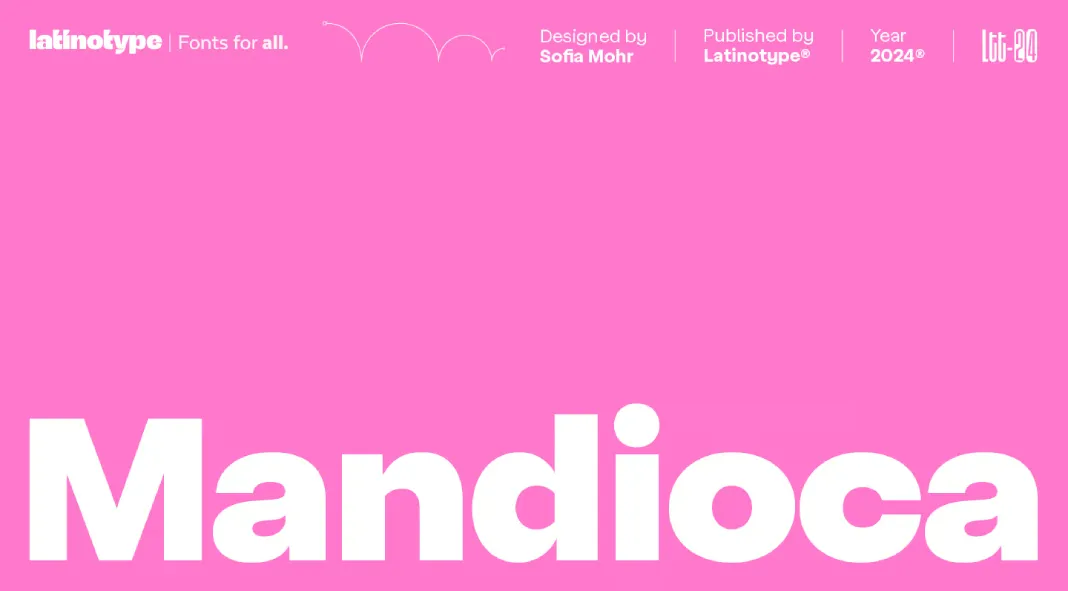
The Mandioca font family, crafted by designer Sofia Mohr and the talented Latinotype Team, is a geometric typeface that offers a nice blend of modern design and timeless elegance. With its harmonious grotesque features, Mandioca provides a fresh and contemporary aesthetic that appeals to a wide range of design sensibilities.
One of the standout features of Mandioca is its wide proportions. These give the typeface a bold and confident appearance, making it an excellent choice for creating striking headlines and eye-catching designs. The font’s closed ends with straight cuts lend a clean and crisp finish to each letter, enhancing its overall legibility. This design choice ensures that Mandioca remains clear and easy to read, even at smaller sizes, making it suitable for both print and digital media.
The high x-height of Mandioca is another noteworthy characteristic. This feature contributes to the font’s readability and visual impact, as it increases the size of lowercase letters relative to the uppercase. This design element, combined with the short ascenders and descenders, makes Mandioca an efficient use of vertical space, which is particularly useful in tight layouts or designs that require a compact typeface.
Mandioca’s distinctive modulation in selected areas adds an extra layer of sophistication to the typeface. This subtle variation in stroke width provides a sense of movement and dynamism, bringing a lively and energetic feel to the text. This characteristic is especially evident in the italic styles, where the modulation enhances the overall flow and rhythm of the typeface.
The Mandioca font family comprises 18 styles, including 9 Roman and 9 Italic, offering a versatile range of options for designers. This extensive variety allows for seamless integration across different projects, whether it’s a formal corporate design or a more playful and creative layout. The range of weights and styles ensures that Mandioca can be used for various purposes, from body text to display headings, providing a cohesive and unified look across all elements of a design.
Beyond its visual appeal, Mandioca excels in functionality. Its strong character and good readability make it an excellent choice for branding, editorial design, and user interface projects. The font’s adaptability to different design contexts and its timeless identity make it a valuable tool for designers looking to create memorable and impactful visual communications.
In summary, the Mandioca font family by Latinotype is a masterful example of modern typography. Its unique blend of geometric and grotesque elements, combined with its wide range of styles and excellent readability, make it a versatile and reliable choice for any design project. Whether you’re looking to create bold headlines, elegant body text, or anything in between, Mandioca offers the perfect balance of style and functionality. This font family is a must-have for designers seeking a modern, sophisticated, and versatile typeface that stands the test of time.